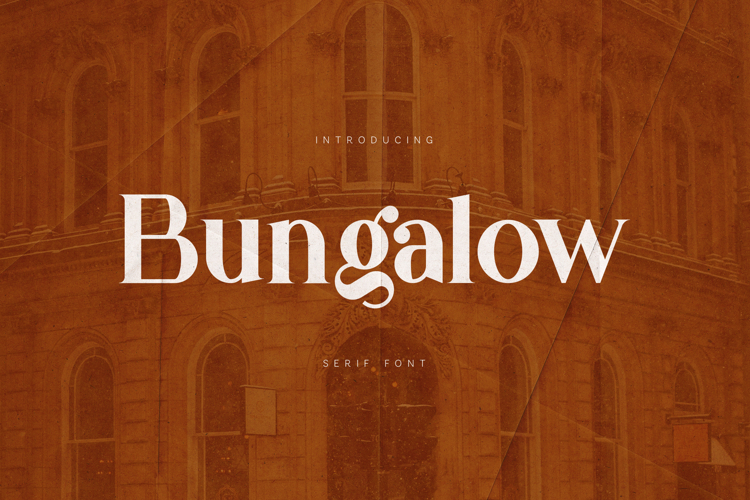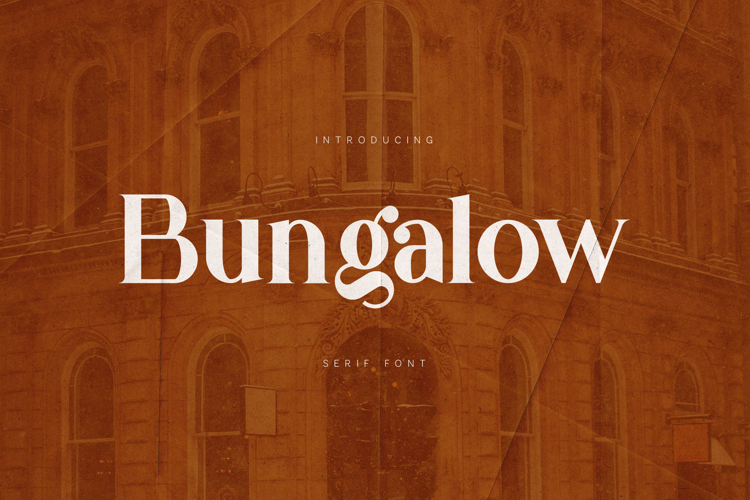
Bungalow Elegant Serif Font
Bungalow is a refined serif font with classic proportions, soft curves, and timeless elegance. Inspired by traditional typography with a warm, editorial character, it’s designed for sophisticated branding, magazines, book covers, posters, packaging, and expressive headline typography.
Its balanced contrast and graceful letterforms give Bungalow a premium feel while remaining highly readable. The font includes uppercase and lowercase letters, numerals, punctuation, and extensive multilingual support, making it suitable for both print and digital design projects. Delivered in OTF format, ready for professional use.